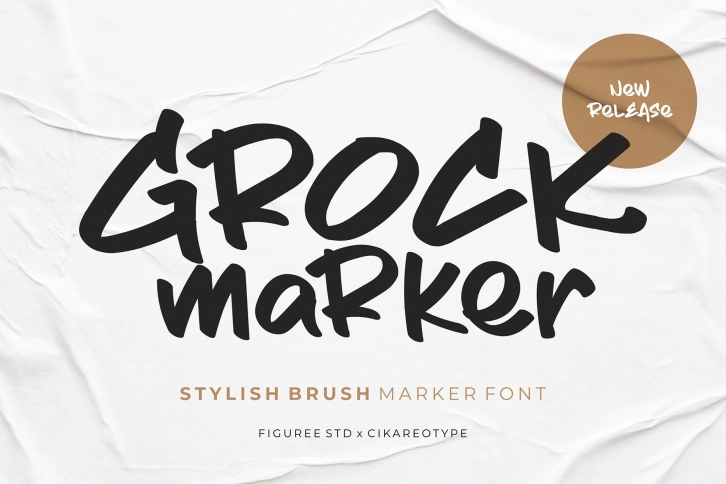
Grock Marker is a great font that was designed by Figuree Studio. Imagine the amount of combinations you can create using this font! The archive is 12.30 MB and it was released on November 3, 2022. Grock Marker looks beautiful on wedding invitations, greeting cards, logos, posters, labels, t-shirt designs, logos, business cards and is perfect for use in ink or watercolor works, fashion, magazines, packaging and food menus, children's books and more!